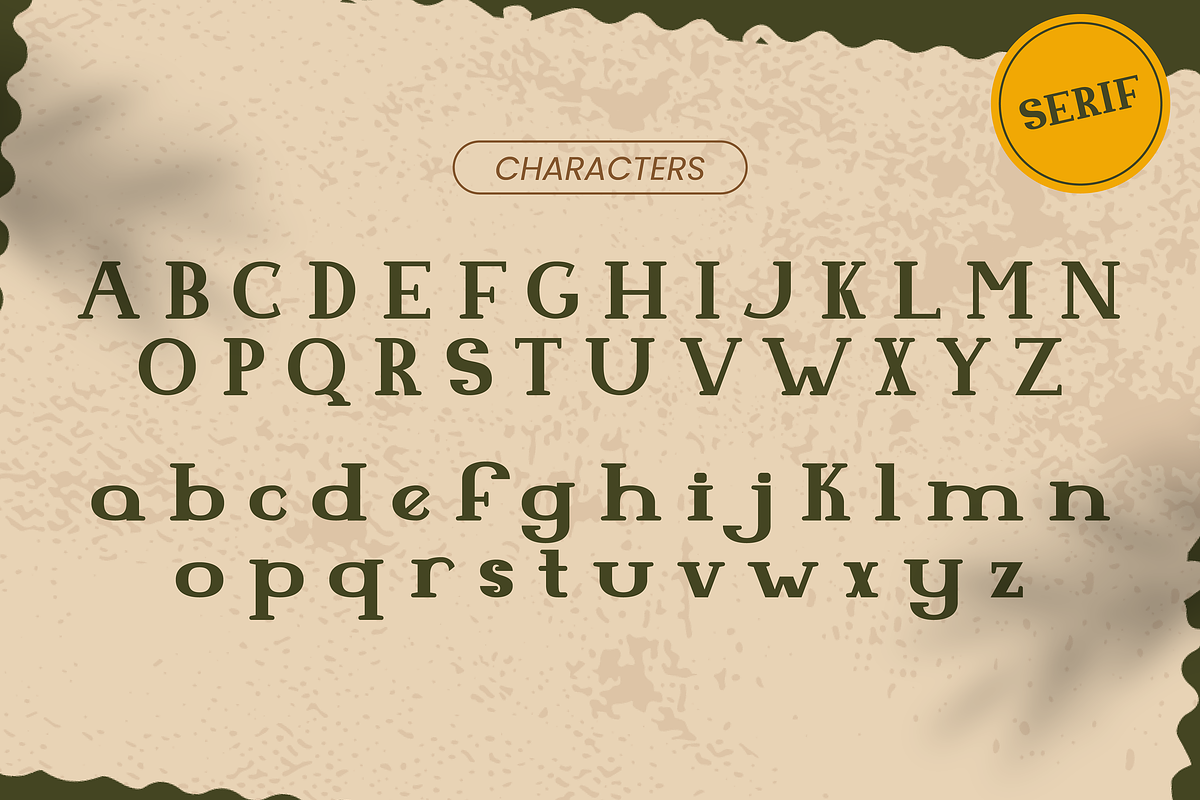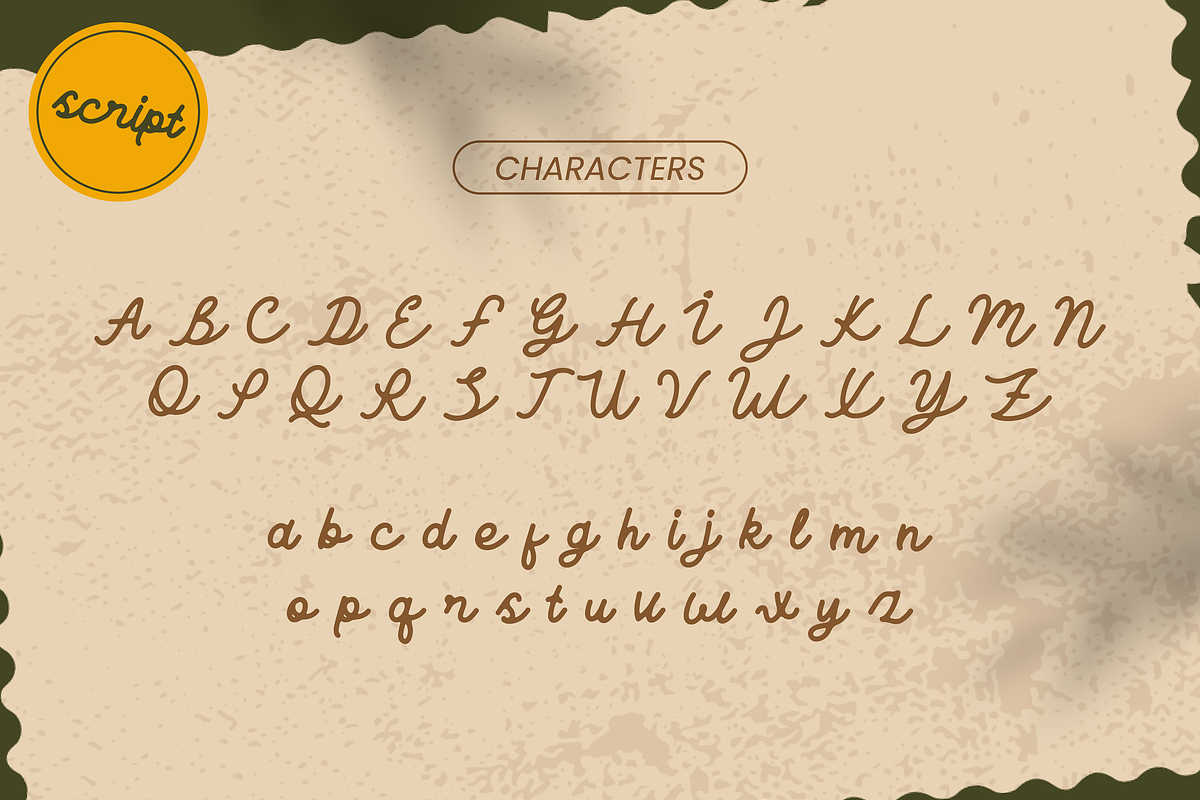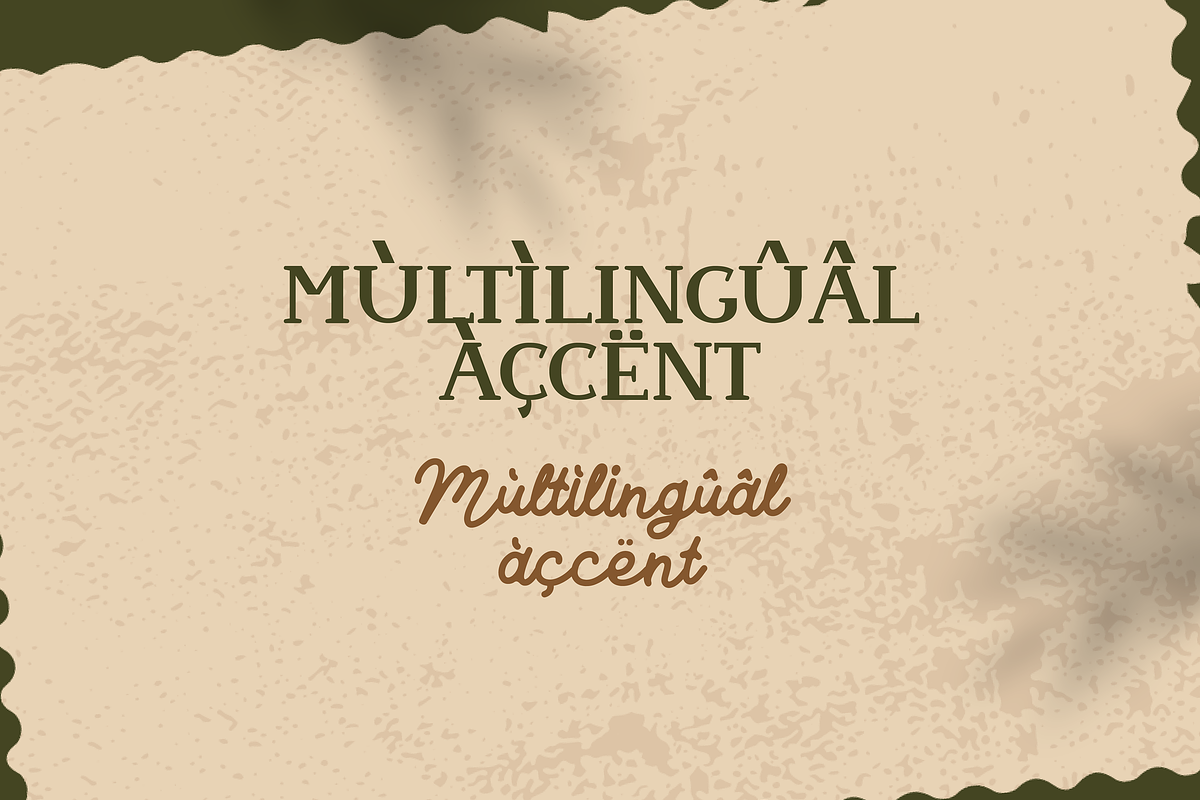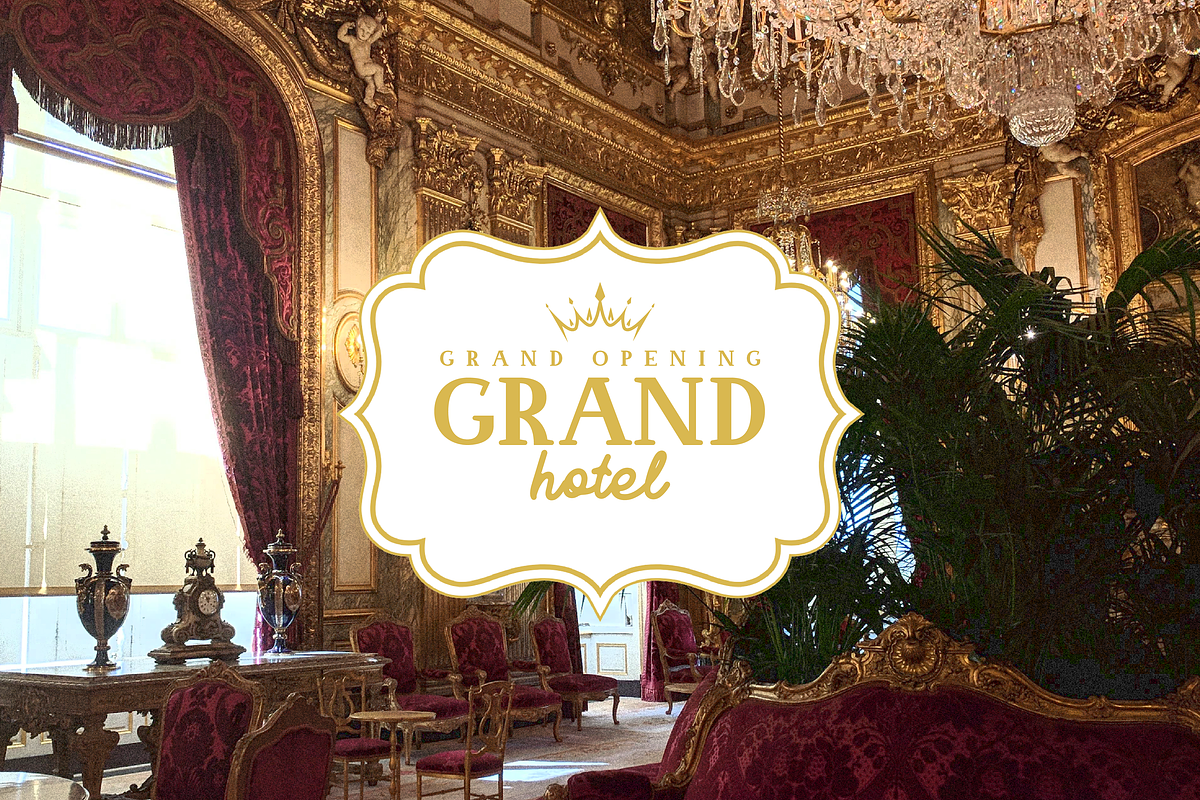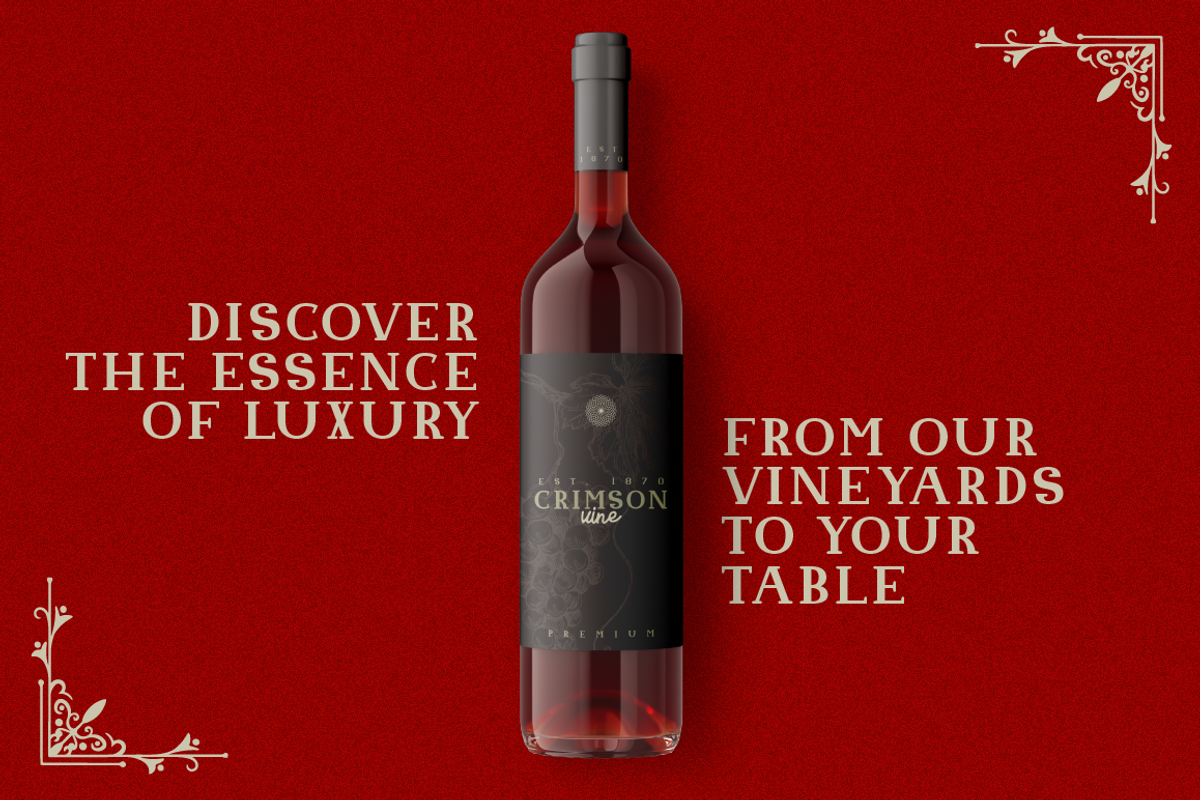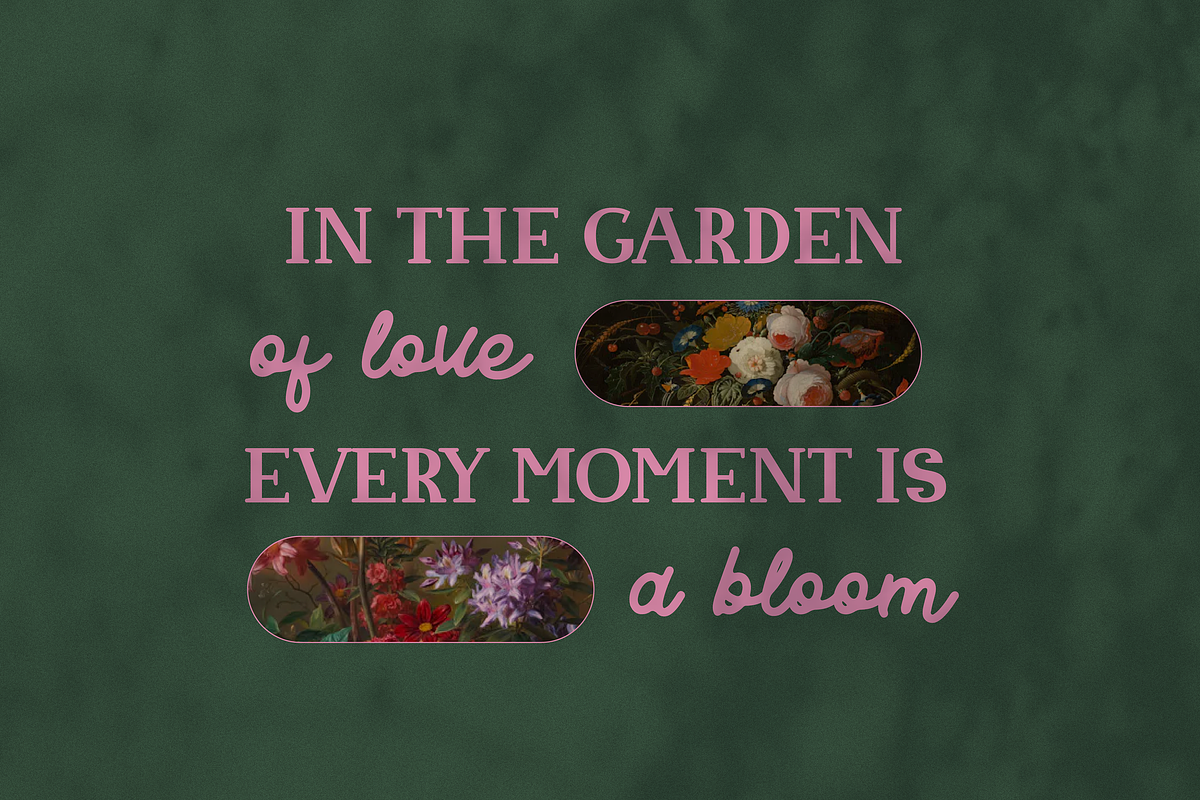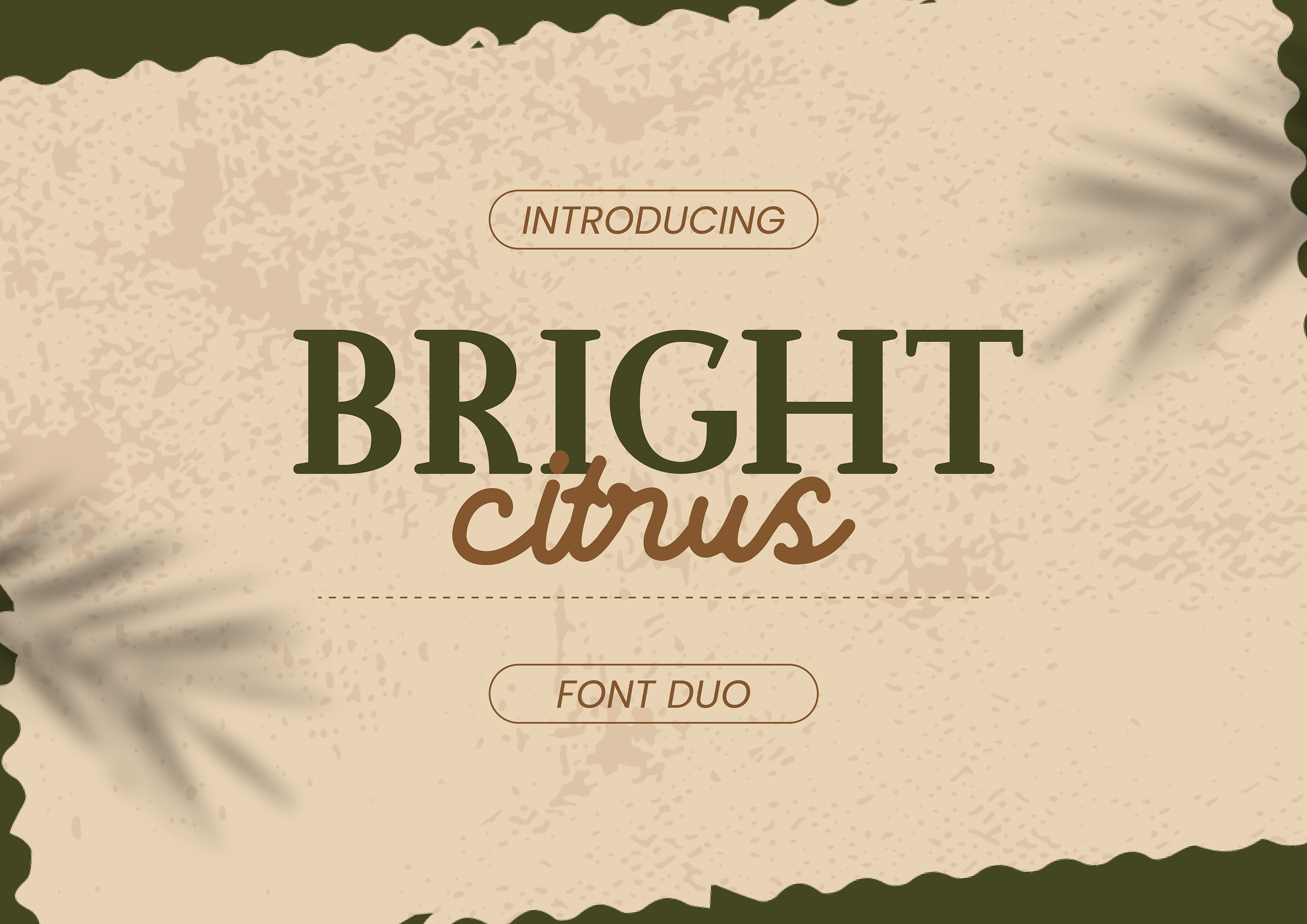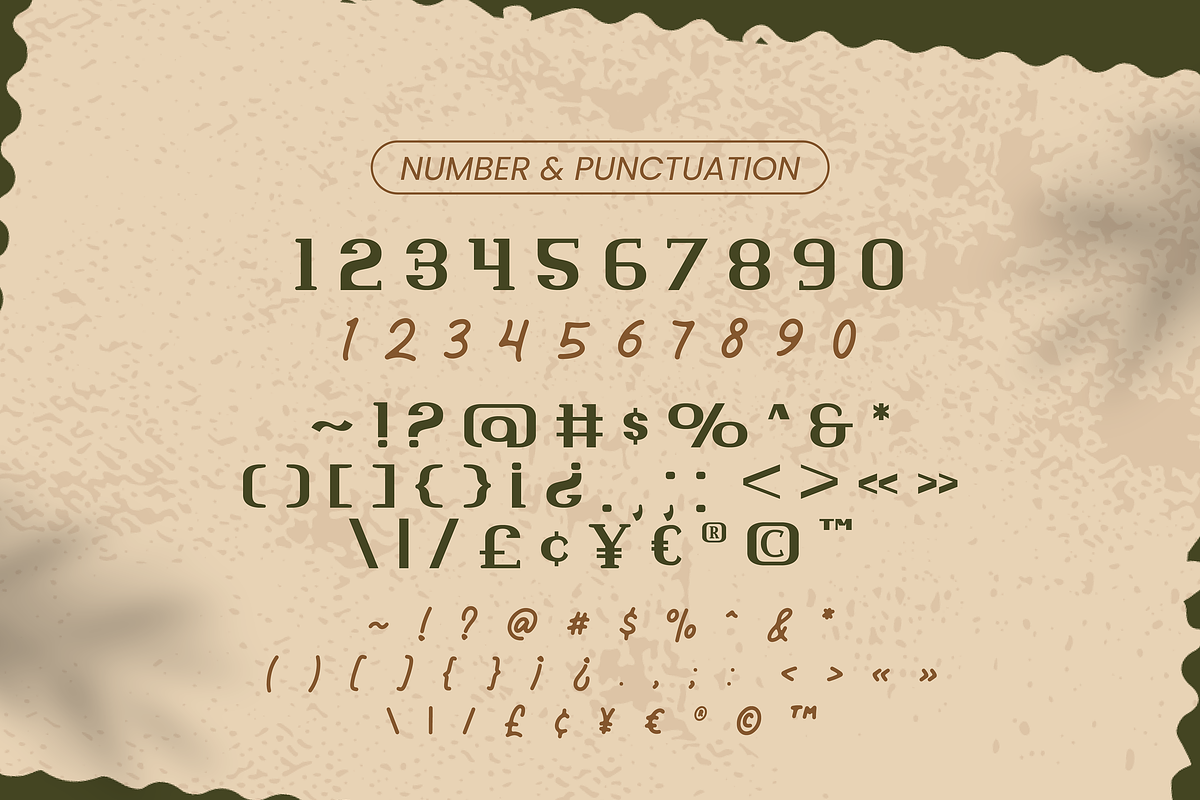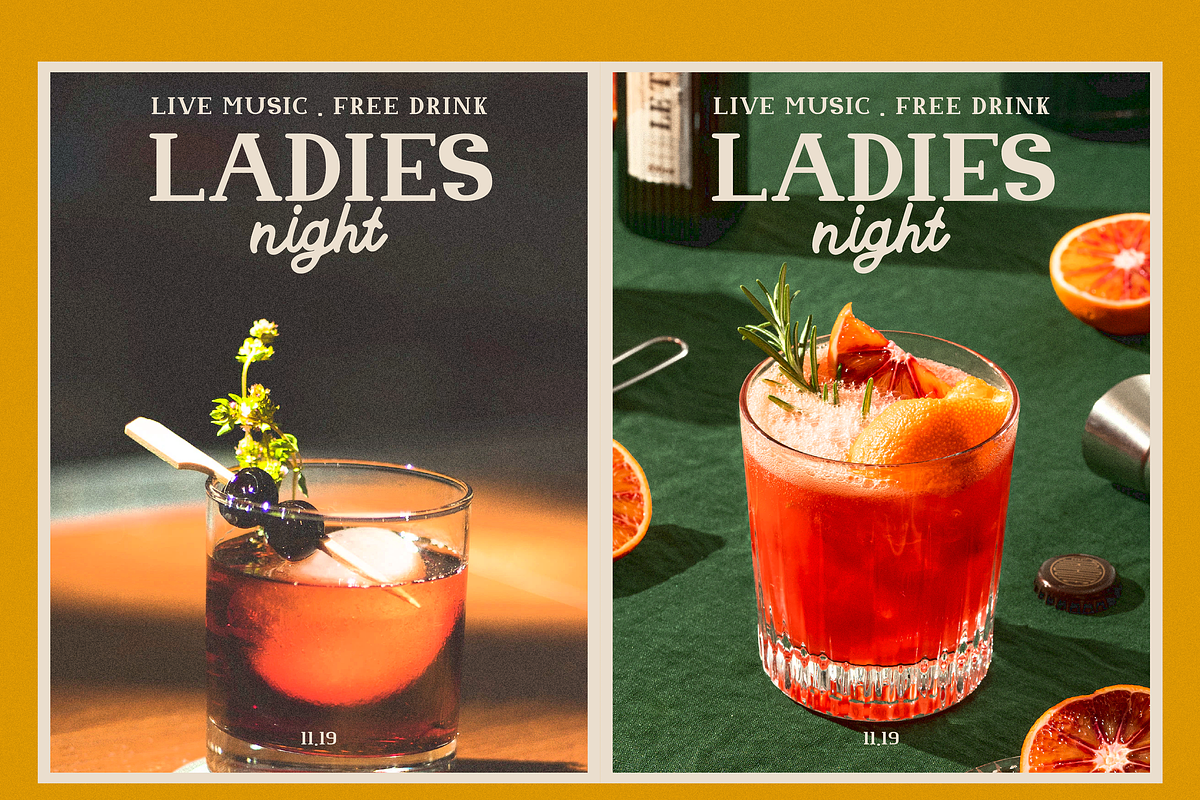
Bright Citrus - Luxury Font Duo
Introducing Bright Citrus
A luxurious font duo featuring elegant serif and charming script styles. Perfectly paired to complement each other, this font combination brings sophistication and flair to your designs. Elevate your branding, invitations, and more with the timeless elegance of Bright Citrus.
Discover the perfect blend of luxury and style. Features :